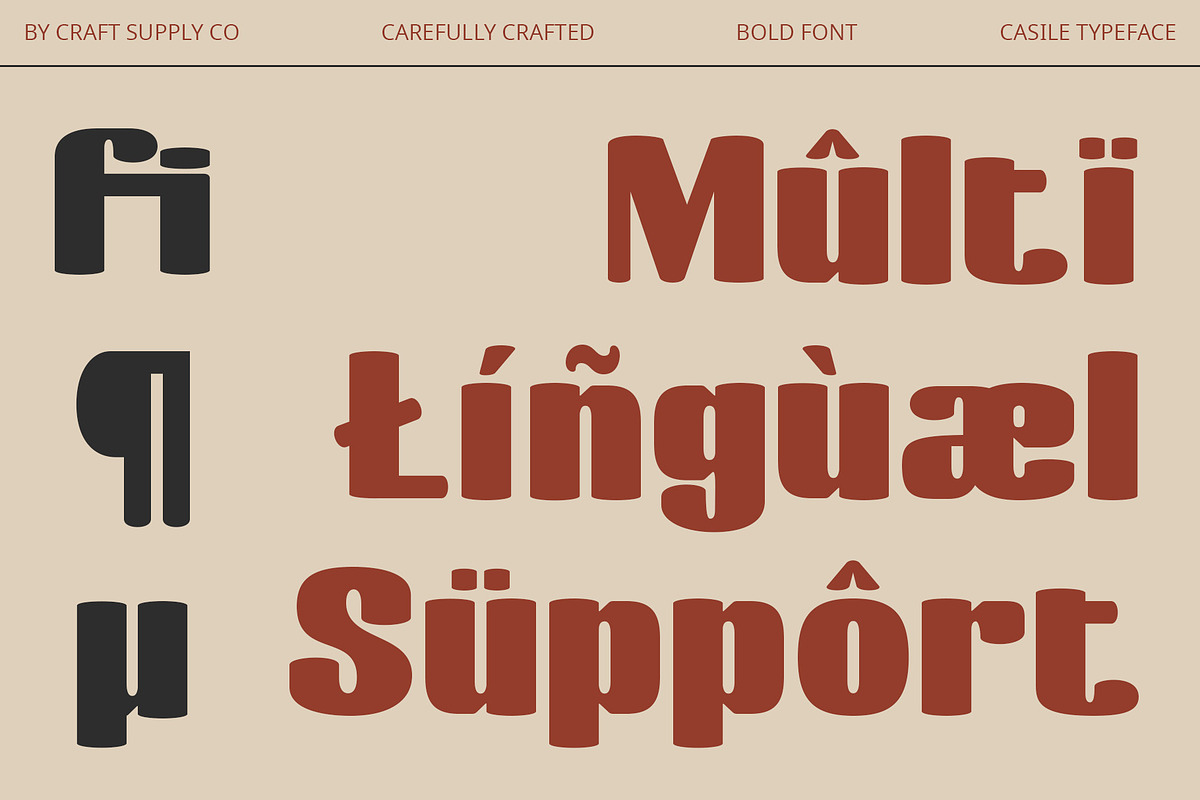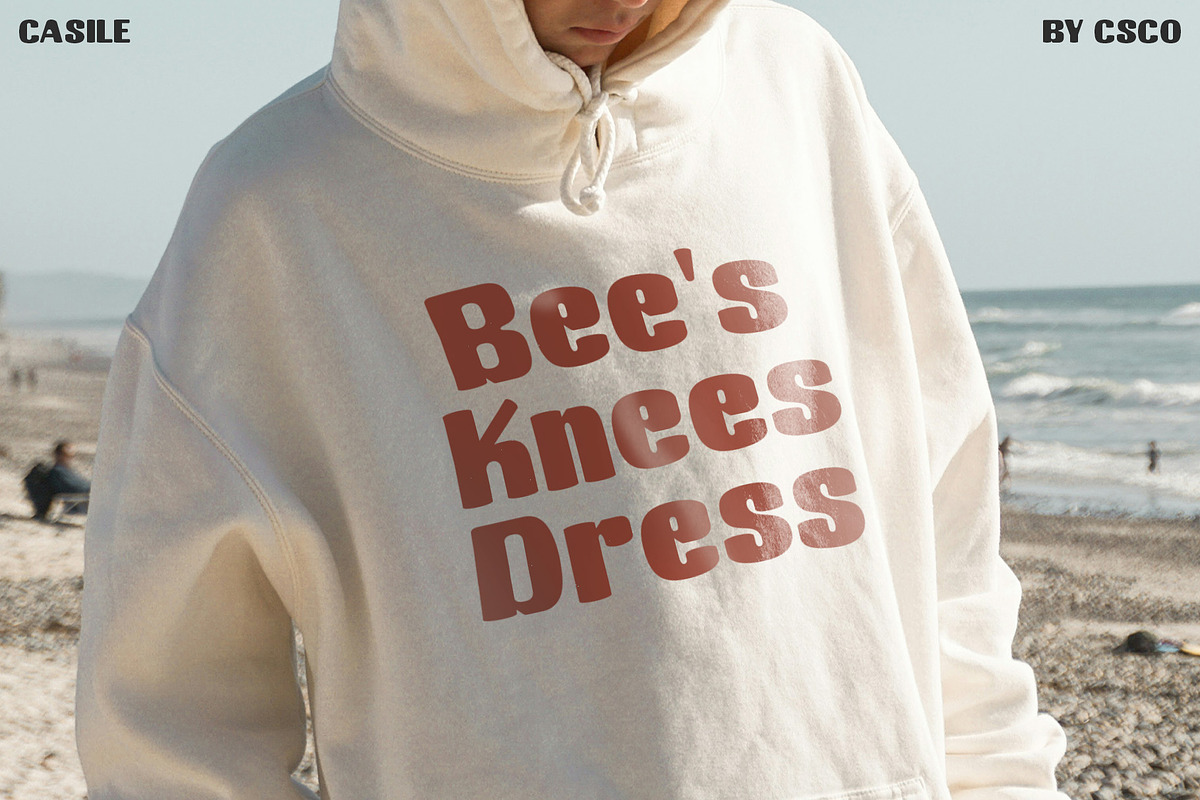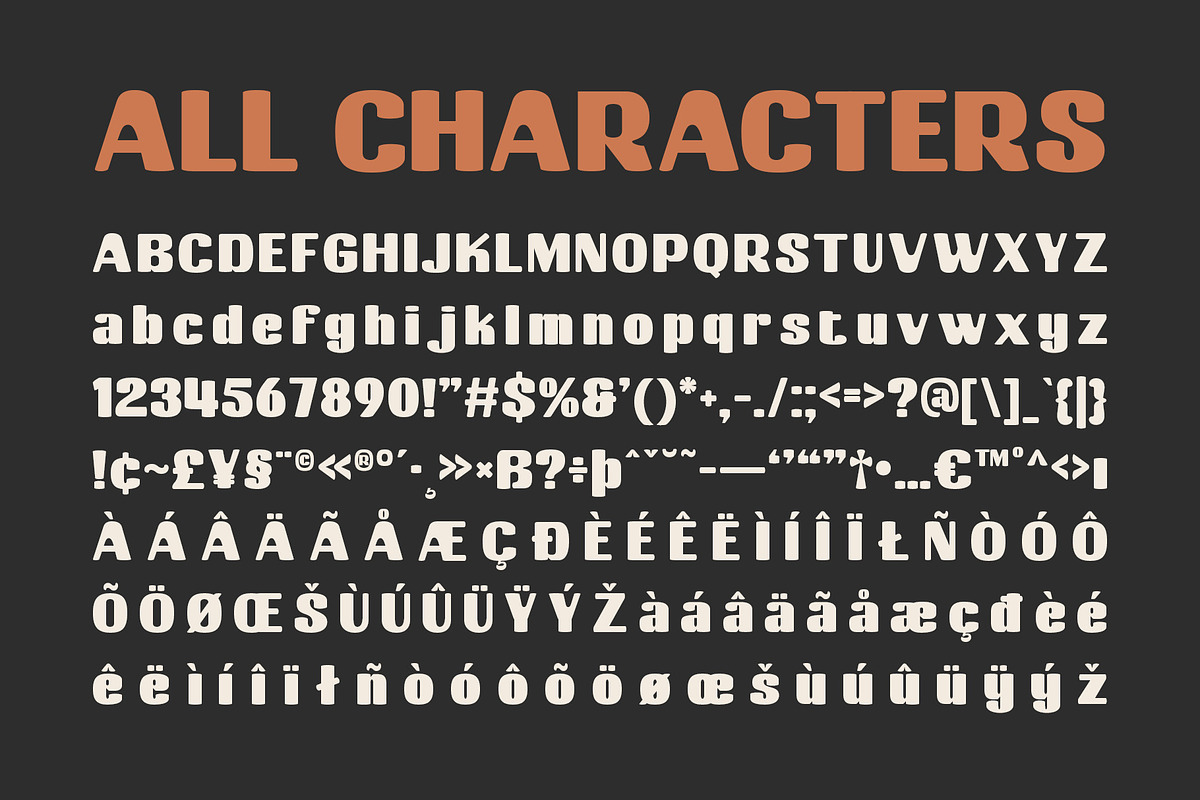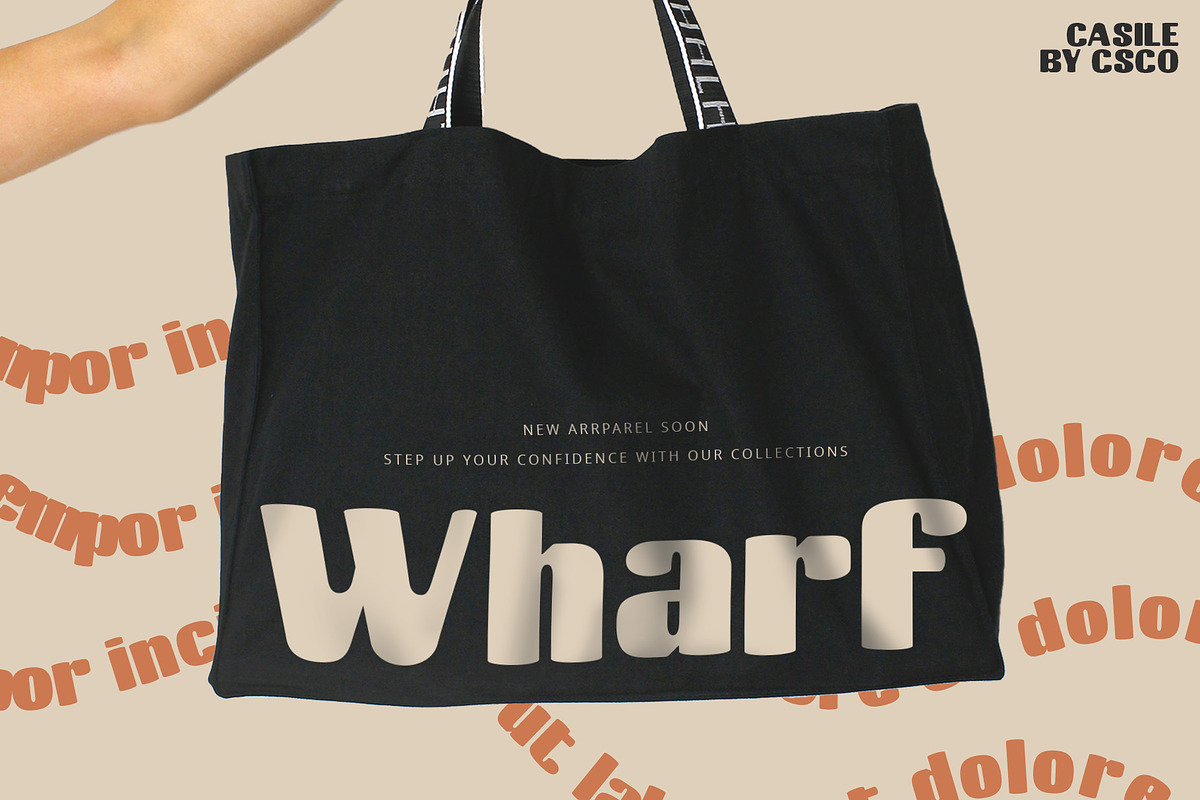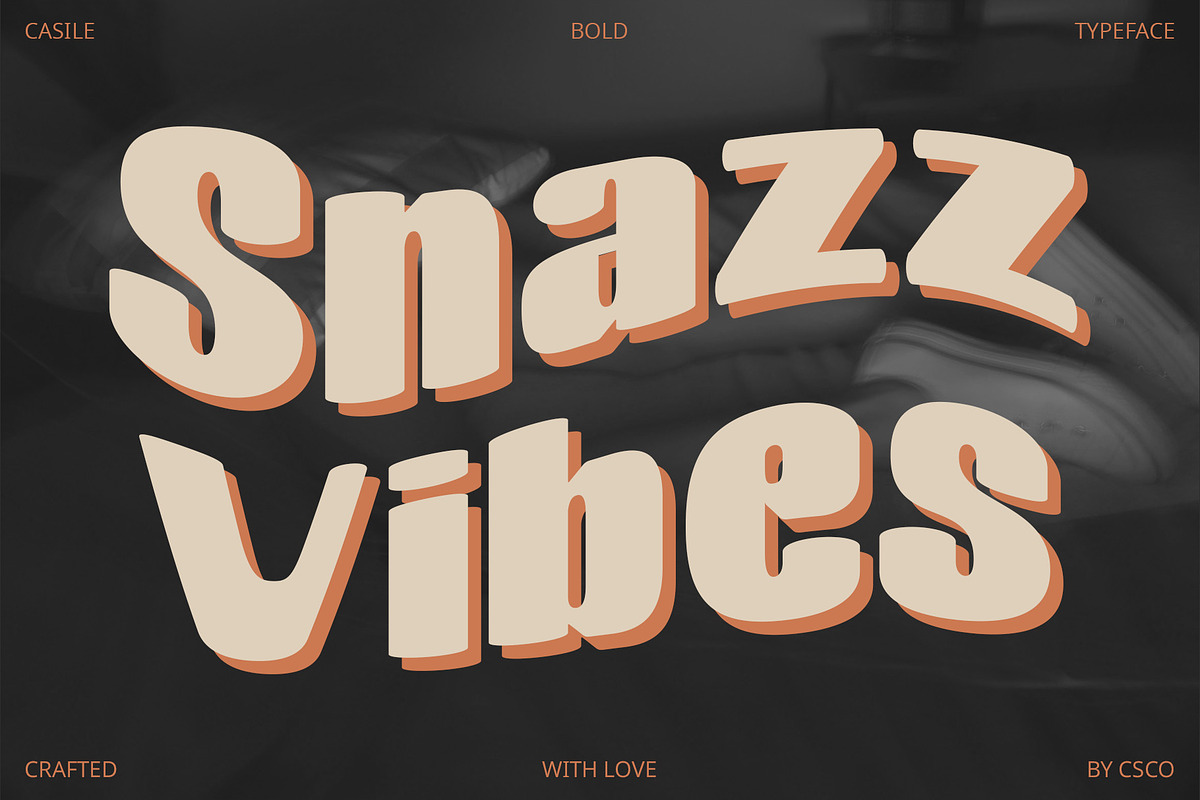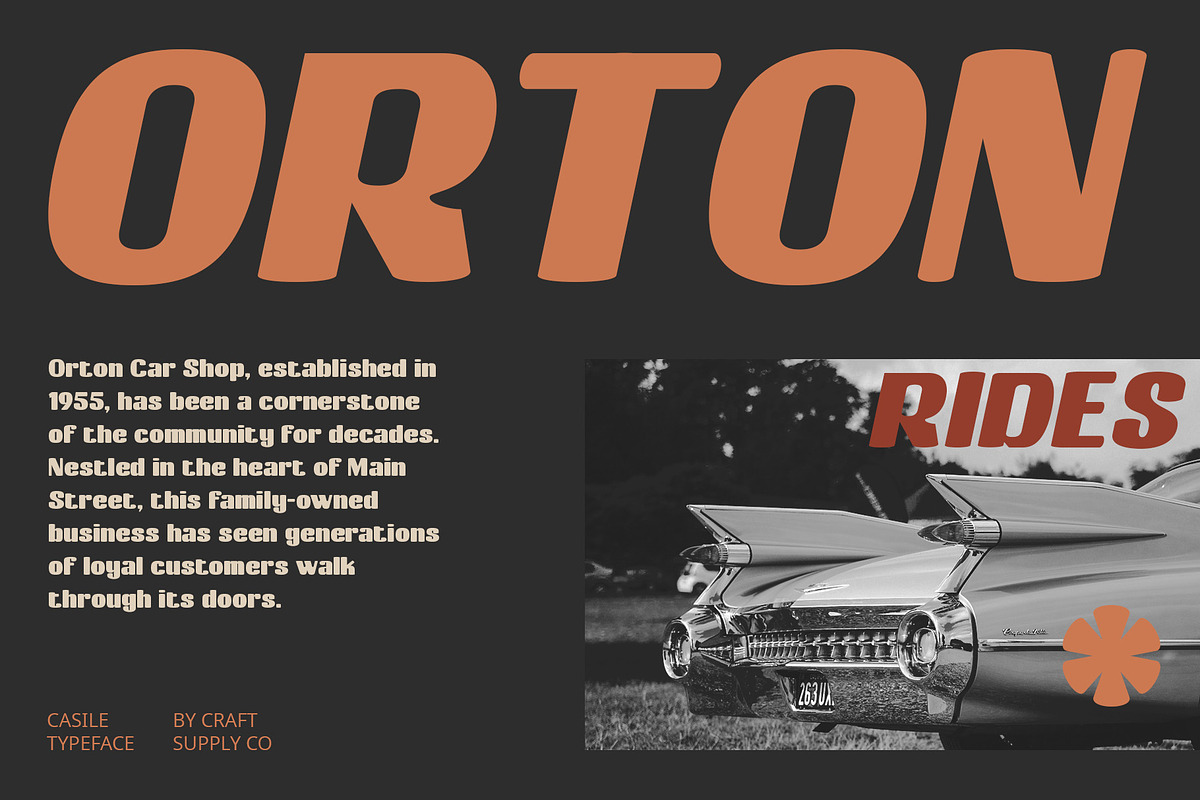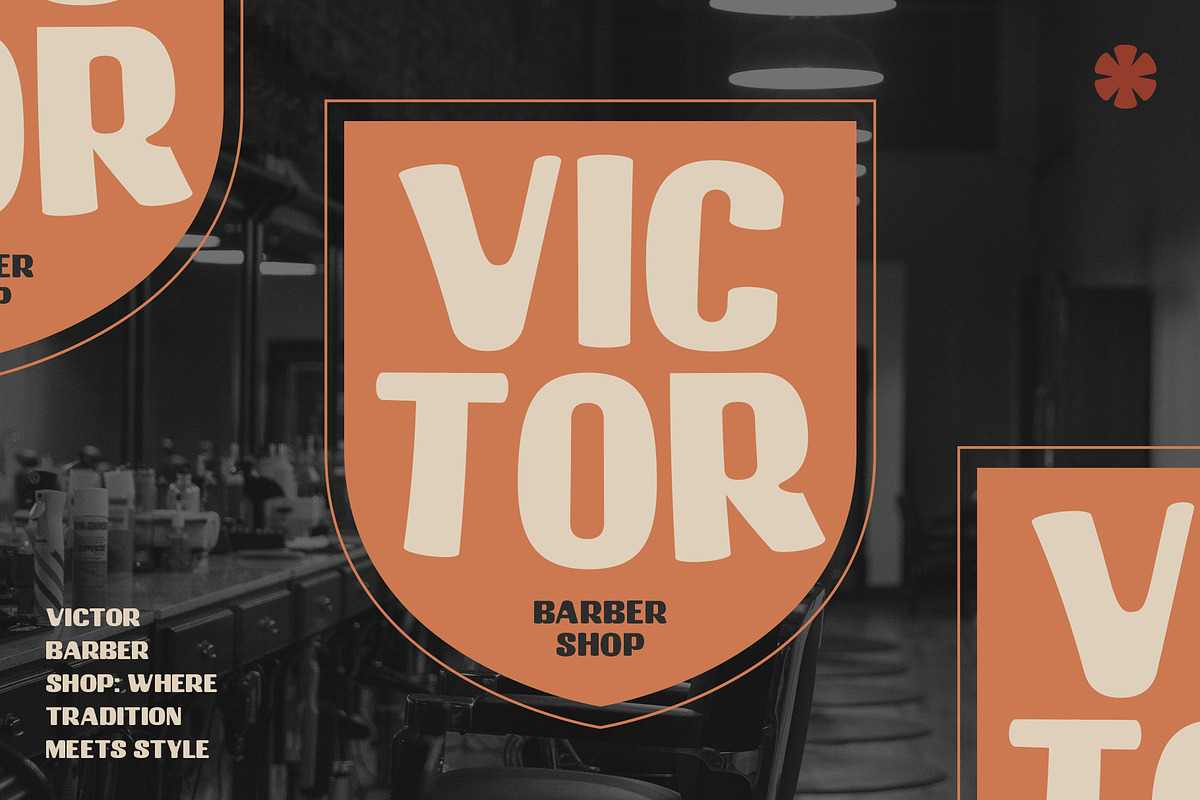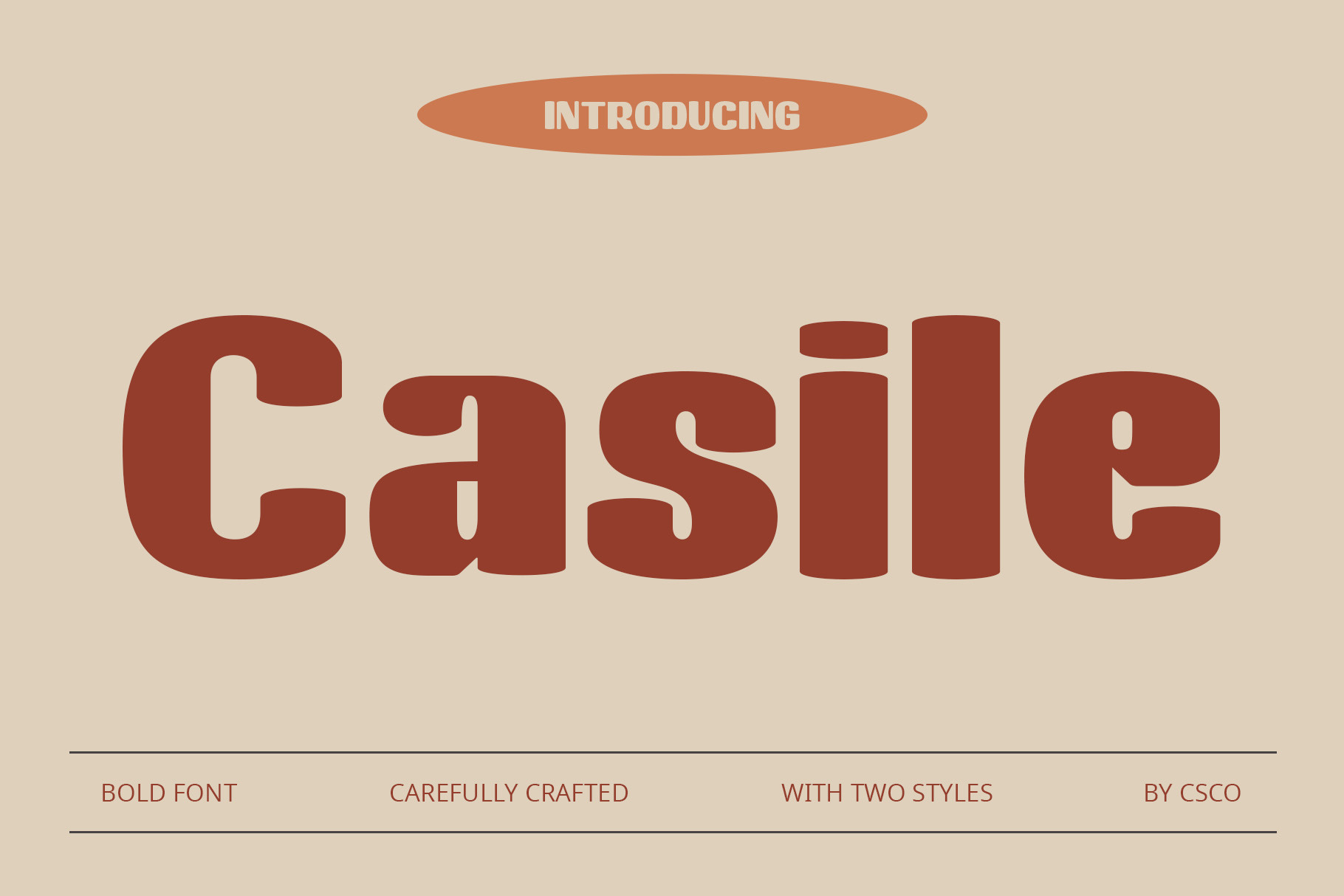
Casile – Bold Font
Casile: Bold Retro Sans Serif
Striking Thick Lines
Casile is a bold sans serif font with a retro style, featuring striking thick lines and design elements reminiscent of graphic styles from the past.
Modern Boldness, Nostalgic Touch
Combining the boldness of modern design with an inviting nostalgic touch, Casile is perfect for highlighting titles or text aiming to evoke a classic feel.
Versatile Design
Its bold character and retro flair make Casile suitable for a variety of applications, from posters and headlines to branding and packaging.
Distinctive Appeal
Use Casile to add a unique and memorable element to your designs, ensuring they stand out with a blend of modern boldness and vintage charm.
Timeless Impact
Create designs that resonate with both modern aesthetics and nostalgic sentiments using Casile, a font that bridges the gap between past and present effortlessly.